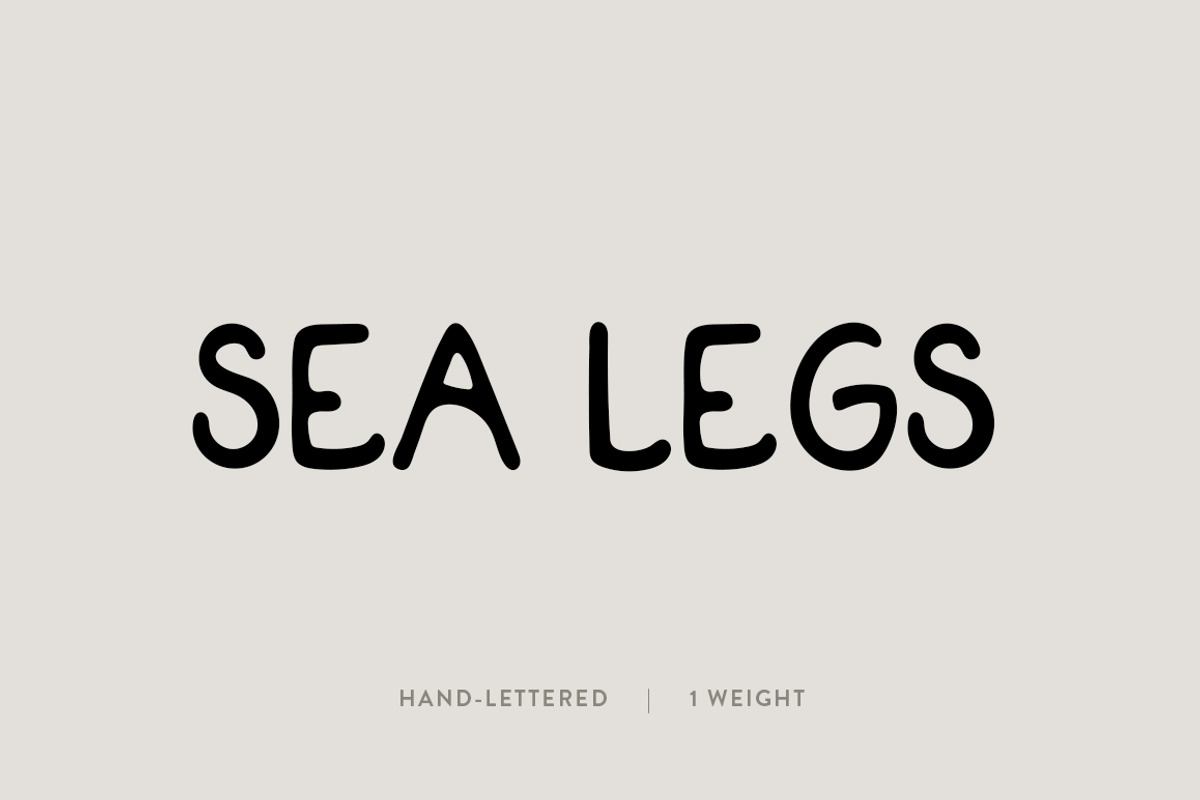
Sea Legs: A Hand-Lettered Font Free Download
Sea Legs: A Hand-Lettered Font Free Download is a playful and organic typeface inspired by seaside adventures and handwritten charm. With its loose, casual strokes and slightly wavy flow, Sea Legs is perfect for beach-themed branding, travel journals, product packaging, greeting cards, and DIY-style social media posts.
The font feels warm, personal, and effortlessly creative—ideal for projects that call for a handcrafted, relaxed look. Sea Legs includes uppercase and lowercase letters, punctuation, multilingual support, and is fully compatible with Mac and Windows systems.